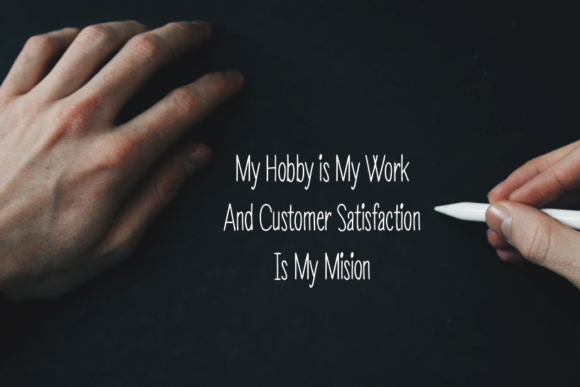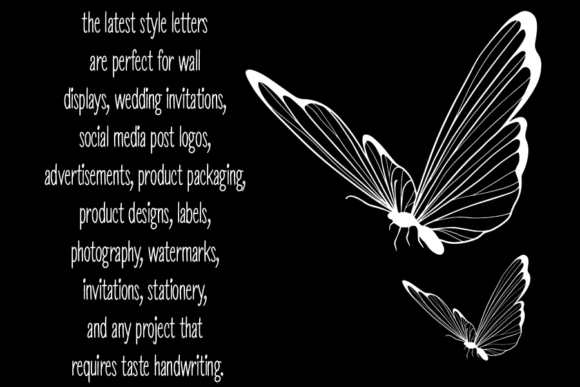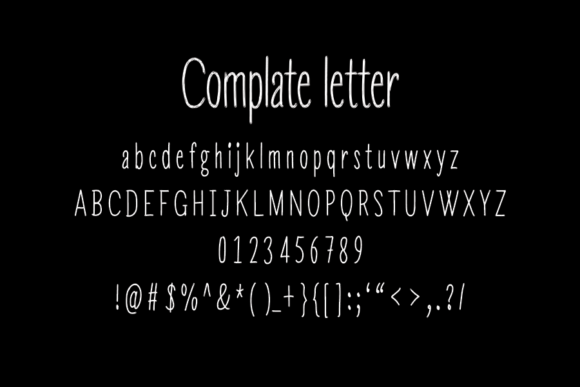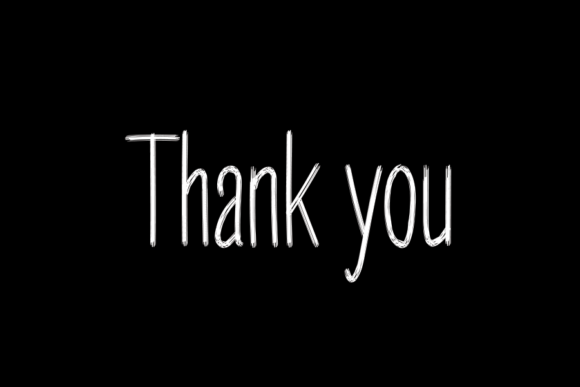
Introduction to Letter Woven Font
Letter Woven is a sweet and friendly handwritten font.
Key Features of Letter Woven Font
Why Choose Letter Woven Font?
Letter Woven Font offers exceptional quality and versatility, making it a valuable addition to your design toolkit. Whether you’re creating for personal projects or commercial use, Letter Woven Font delivers professional results.